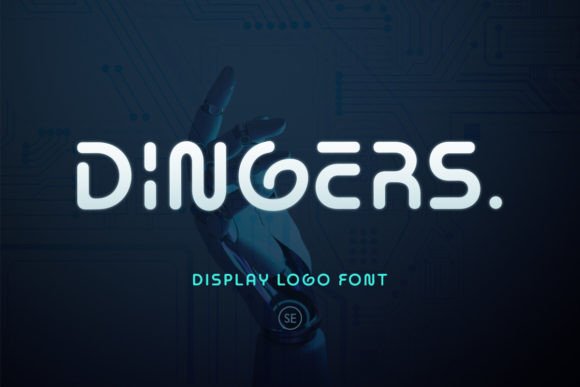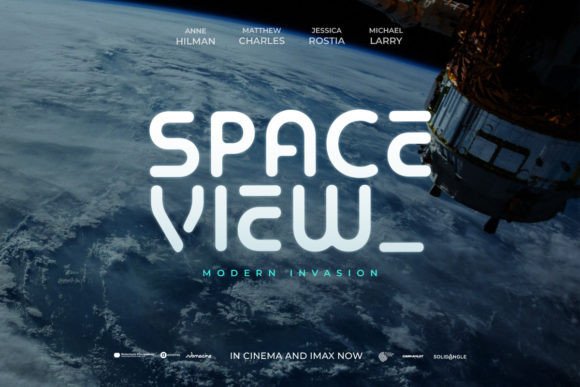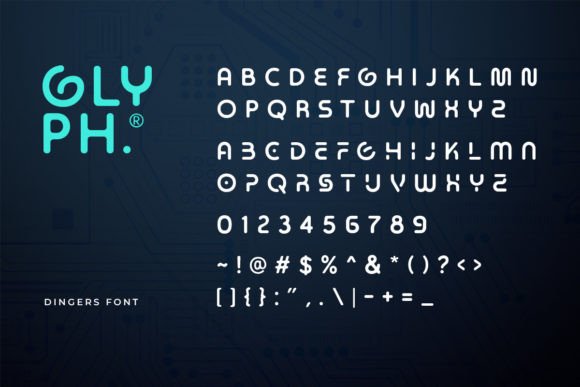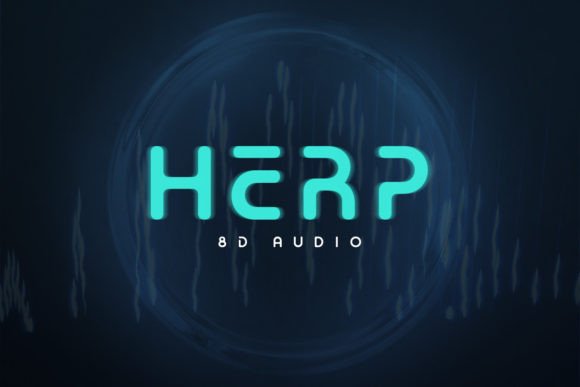
Dingers Font: Hi-Tech Sans Serif for Futuristic Logo Design & Posters
About the Dingers Font
The wait is over! The incredible Dingers Font is now available for your design toolkit. Dingers is a sans-serif based typeface with a fancy rounded shape that will make your design looks hi-tech and trendy. This font can be used for a variety of purposes, including logotype, sci-fi movie posters, and for branding. To make your logo stand out, mix and match uppercase and lowercase letters.
Dingers excels in headline treatments, short impactful statements, and logo design, particularly for brands projecting a modern, slightly futuristic image. Its rounded forms lend themselves well to technology-related projects, gaming, and youthful brands. Avoid using Dingers for large blocks of body text; its unique forms can become visually tiring at smaller sizes.
Consider pairing Dingers with a clean, geometric sans-serif like Montserrat for a balanced, high-tech feel, or a classic serif like Garamond for a sophisticated contrast. For a more playful outcome, a handwritten script font could create an interesting juxtaposition.
Dingers’ overall personality is bold and optimistic, with a touch of playful energy. Its rounded forms soften its modernity, preventing it from feeling overly cold or sterile.